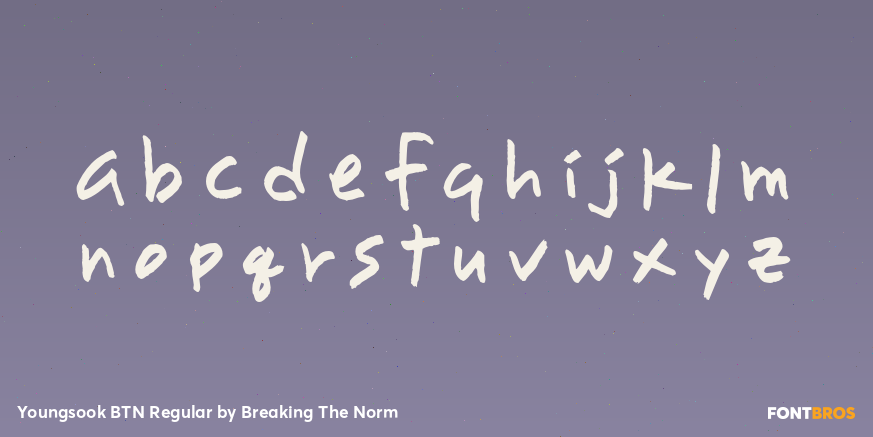
Youngsook BTN Regular
Youngsook BTN is a casual handwritten font drawn with a wedge-tipped marker, giving it a natural rhythm and a slightly calligraphic edge without losing its everyday handwritten feel. Its informal, personal character makes it well suited for notes, journaling, scrapbook use, casual labeling, blog graphics, classroom materials, packaging, and designs that need a direct human touch. Youngsook BTN feels relaxed, expressive, and readable, offering a handwritten voice that is more marker-driven than polished or scripted.